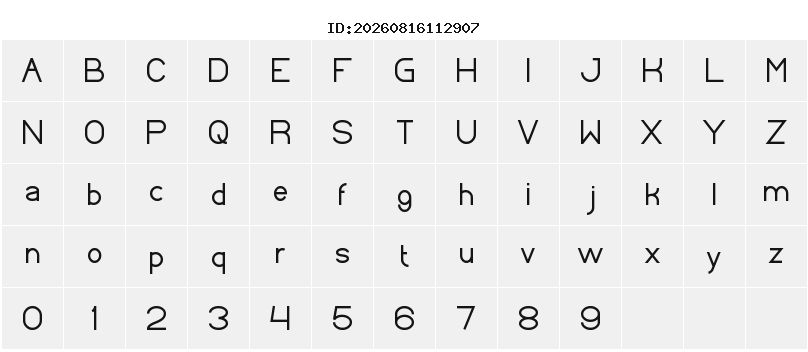
Standard International Preview
About Standard International.ttf
Standard International.ttf is a modern, elegant sans-serif font designed for ultimate readability and visual harmony. Perfect for branding, headlines, web design, and print materials.